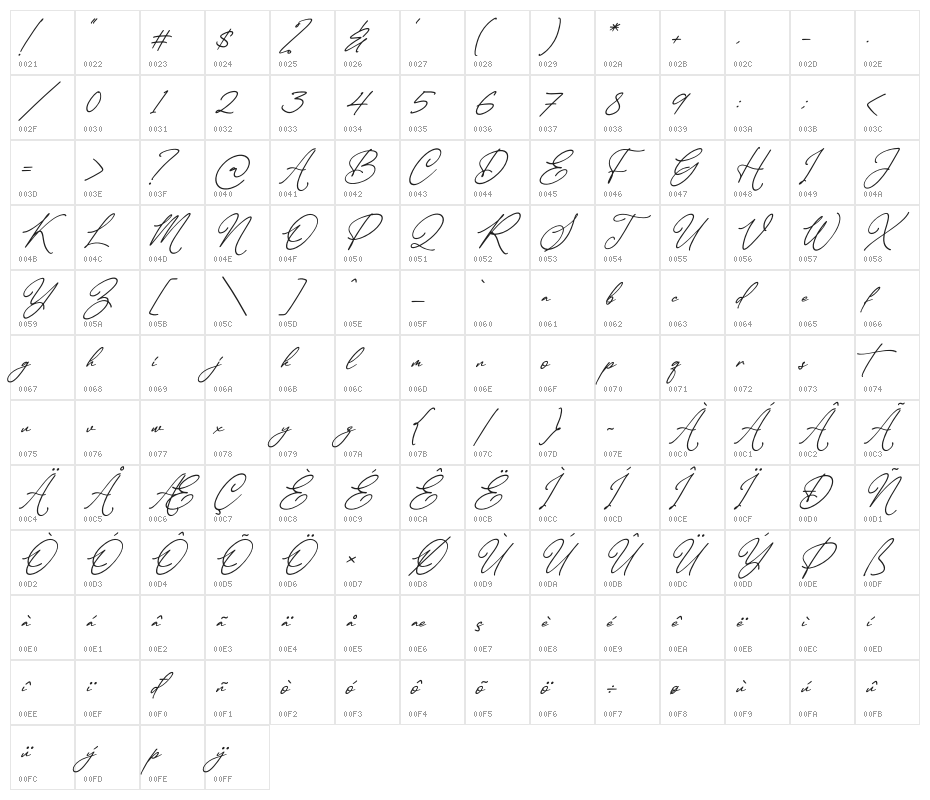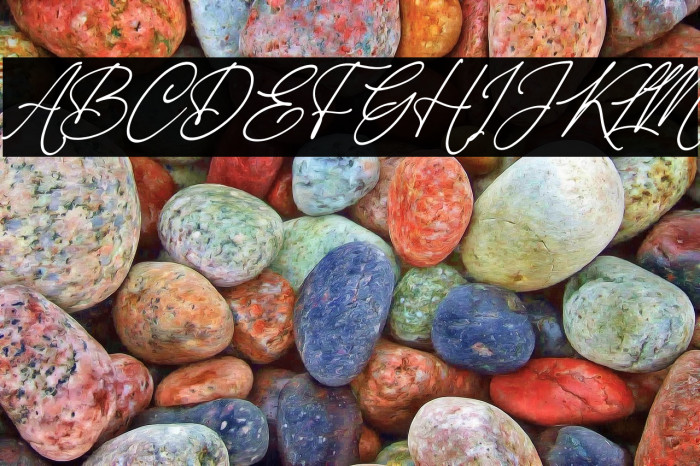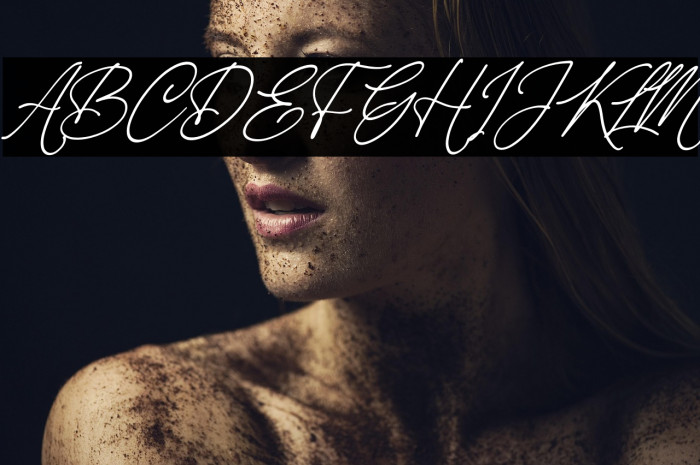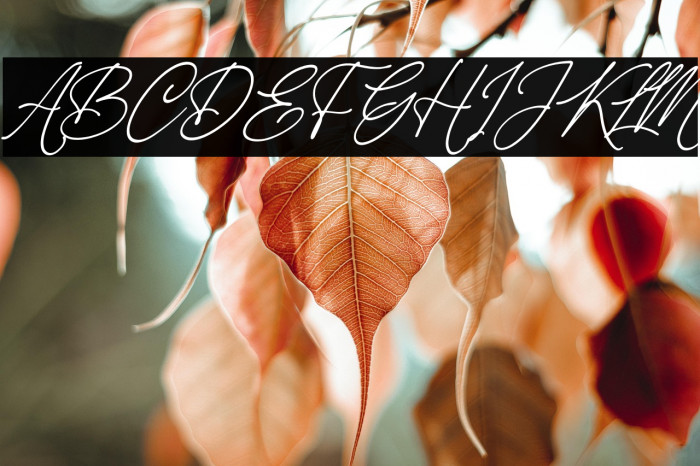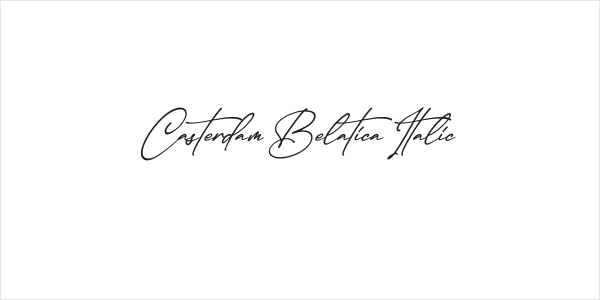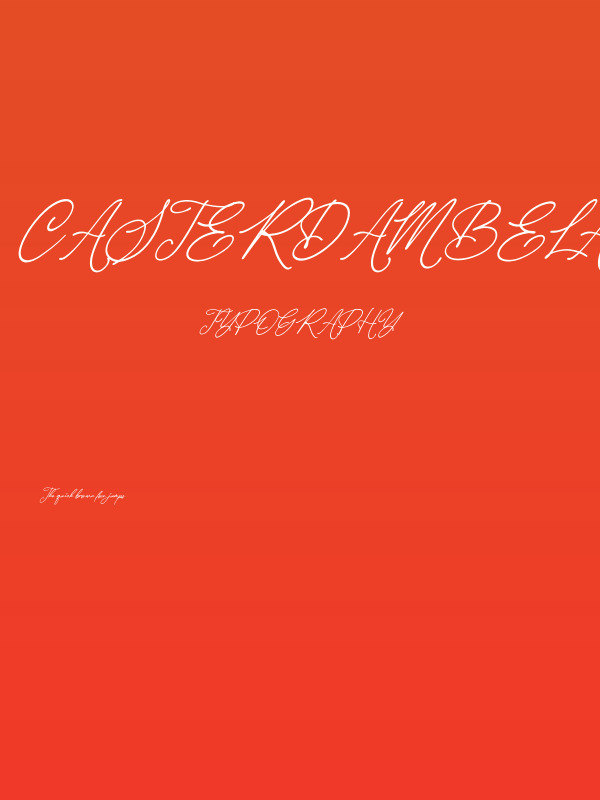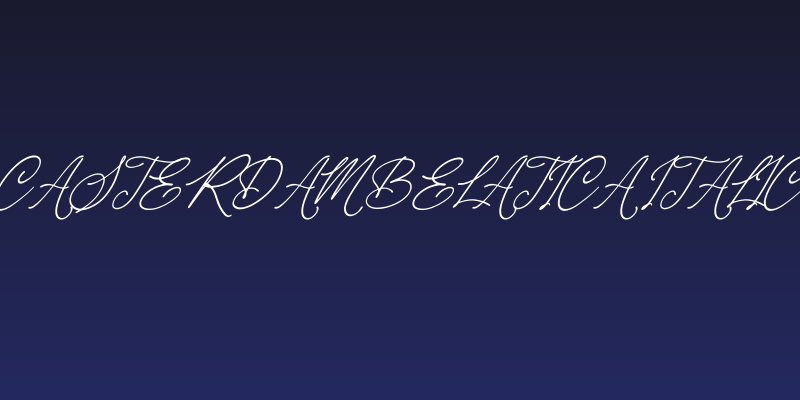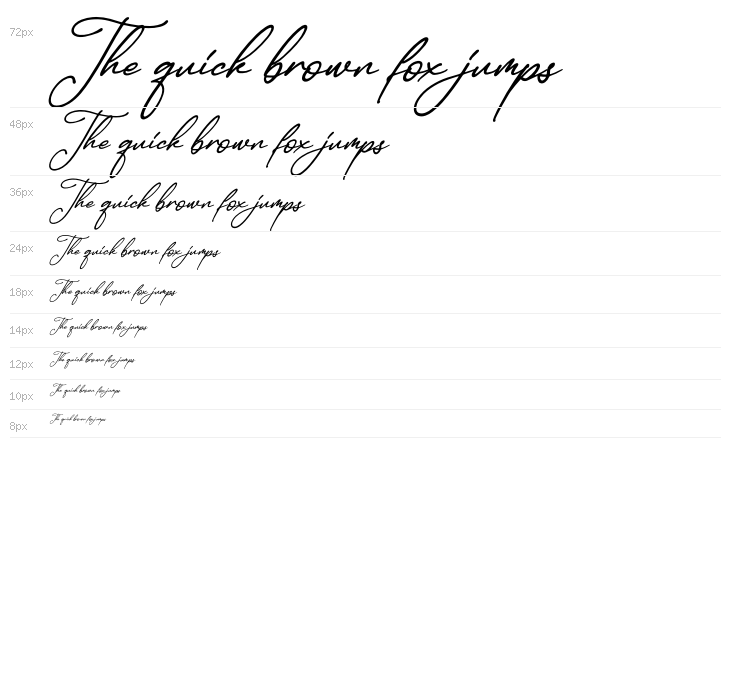
Casterdam Belatica Italic Font
Casterdam Belatica Italic Description
This elegant script font features a flowing, cursive style with a sophisticated and artistic flair. The letters are interconnected, with smooth, sweeping curves and a consistent slant that adds a dynamic sense of motion. The uppercase letters are ornate and decorative, while the lowercase letters maintain a more refined and delicate appearance. The numerals are styled to match the script's fluidity, and the special characters are thoughtfully integrated, maintaining the overall aesthetic. This font exudes a sense of elegance and grace, making it ideal for projects that require a touch of sophistication.
| Overall Style | Elegant, Artistic |
| Proposed Projects | Ideal for wedding invitations, elegant branding, luxury packaging, and artistic posters. |